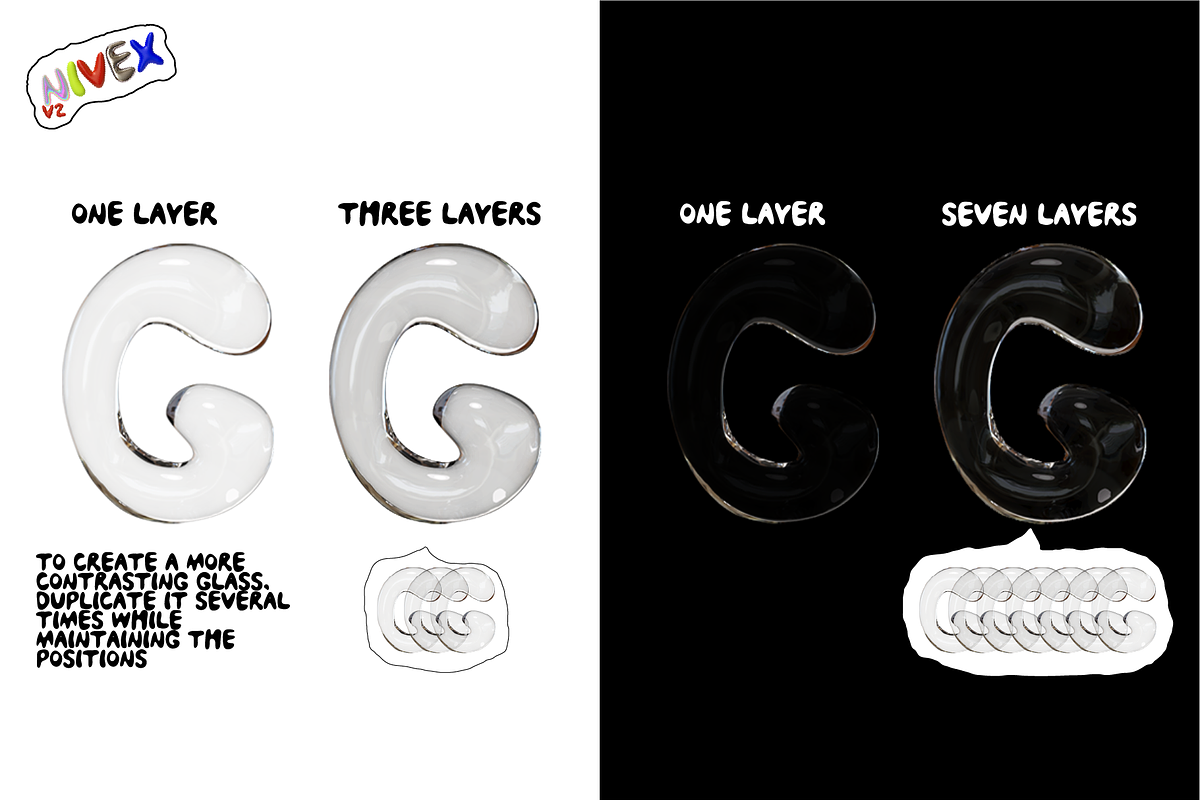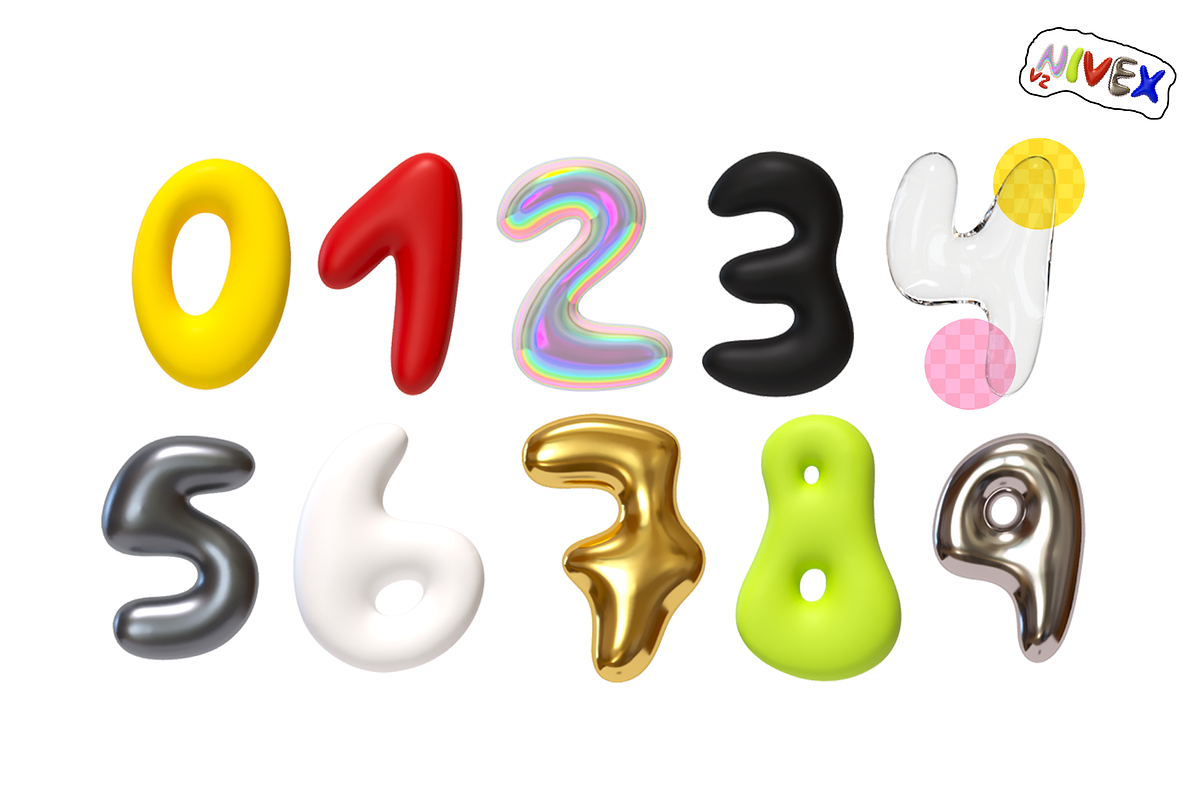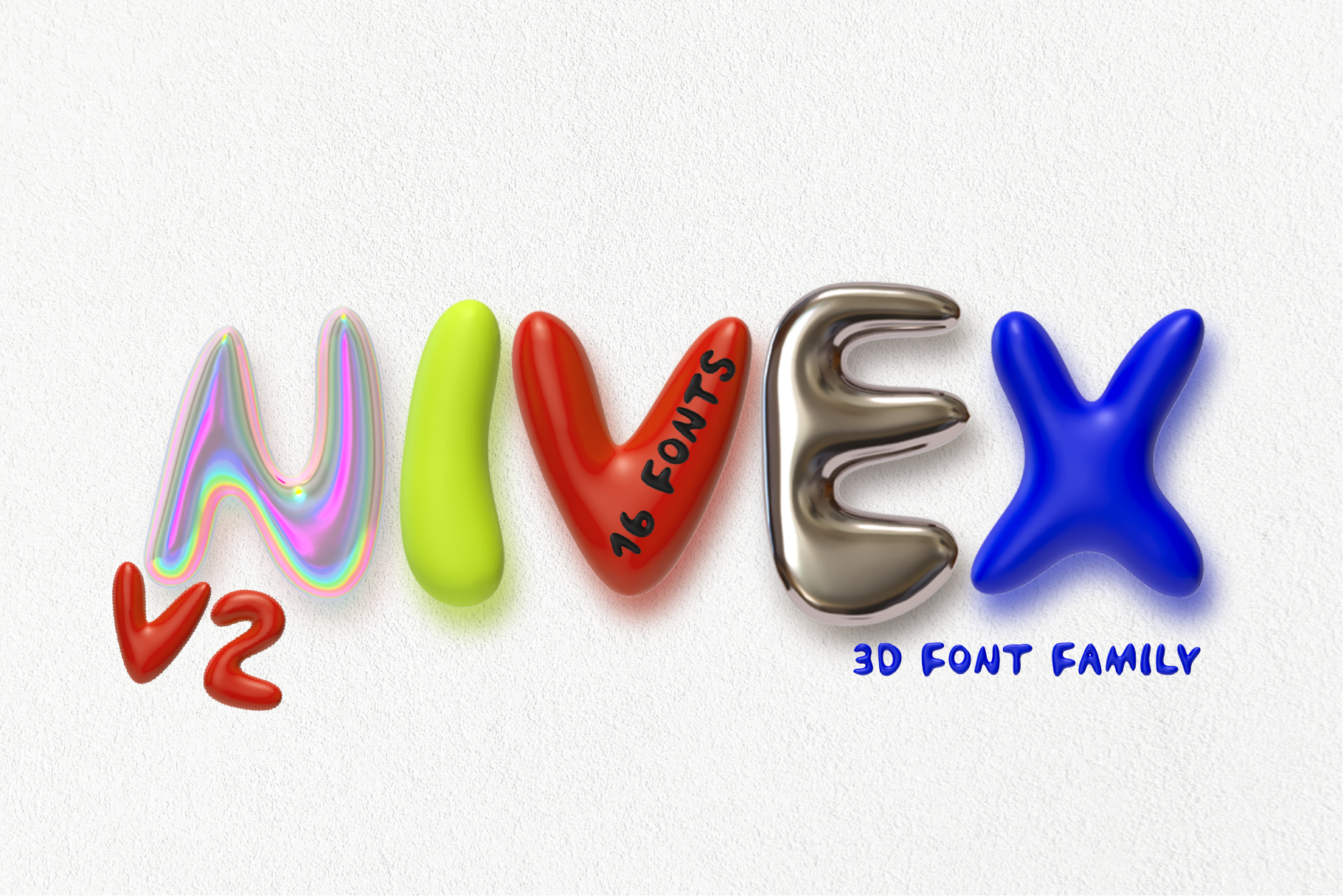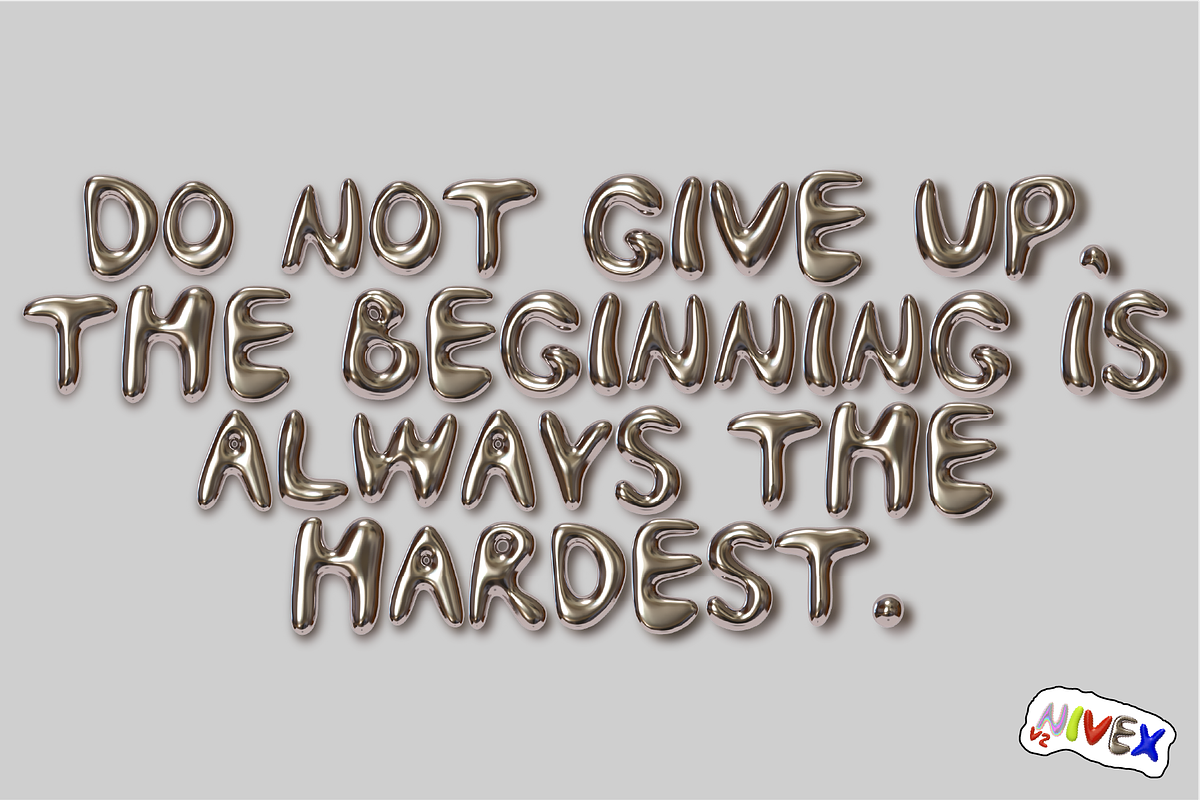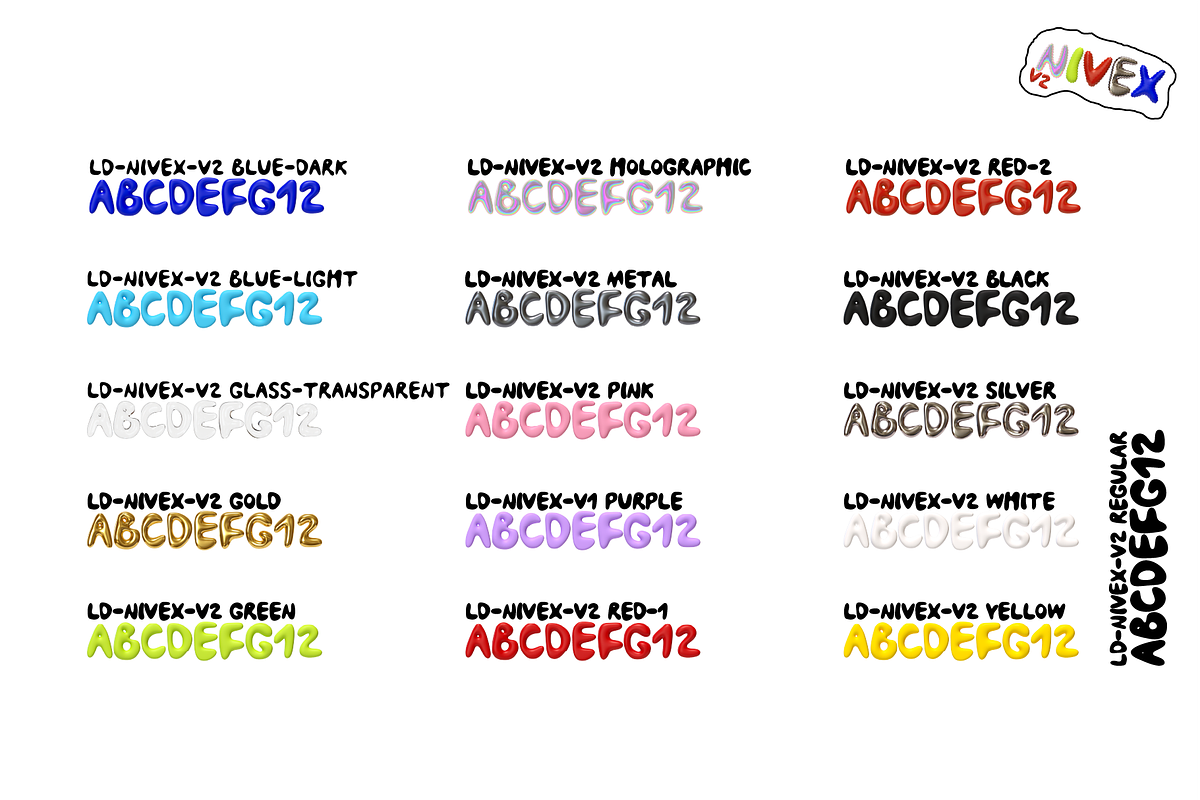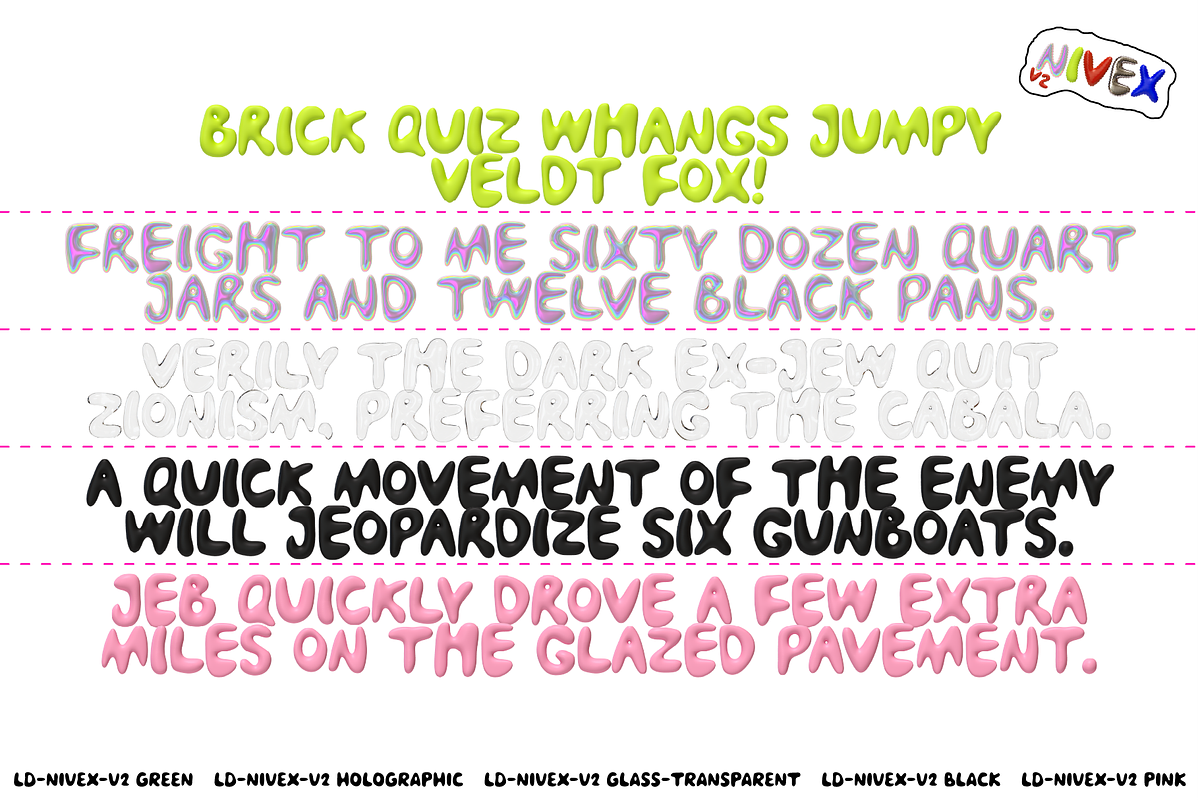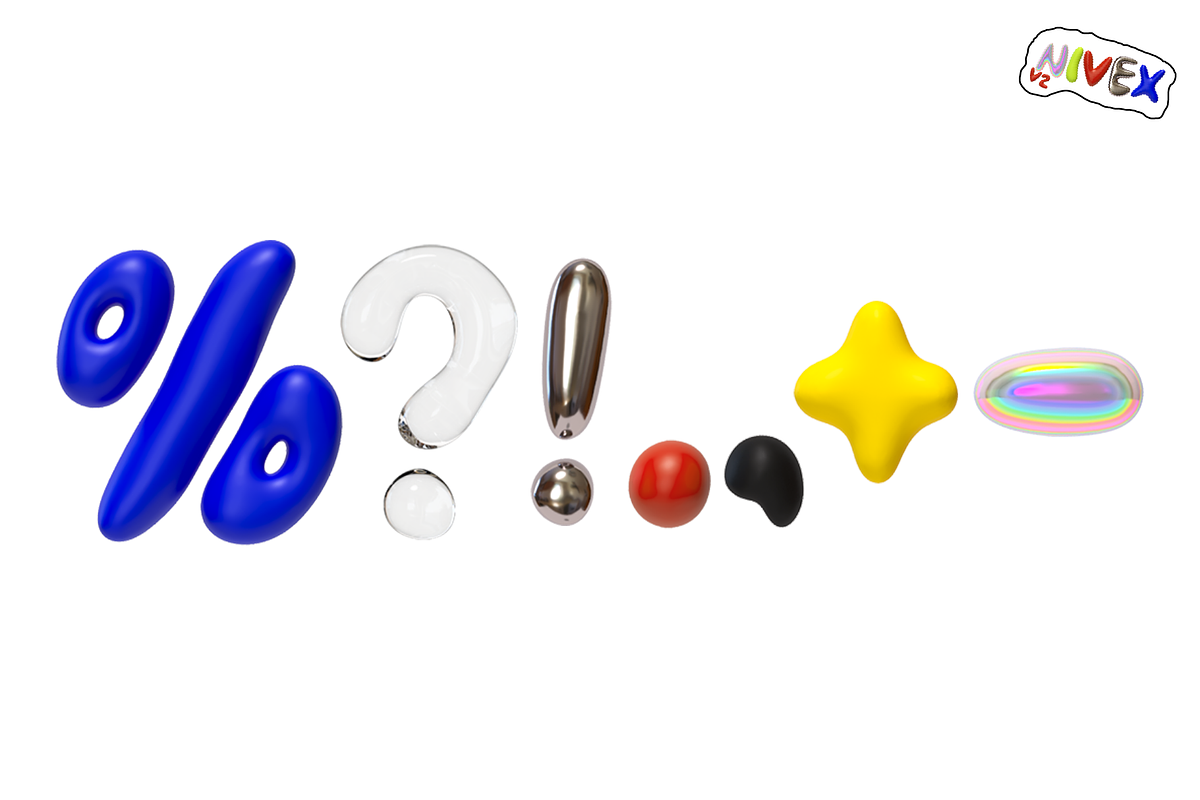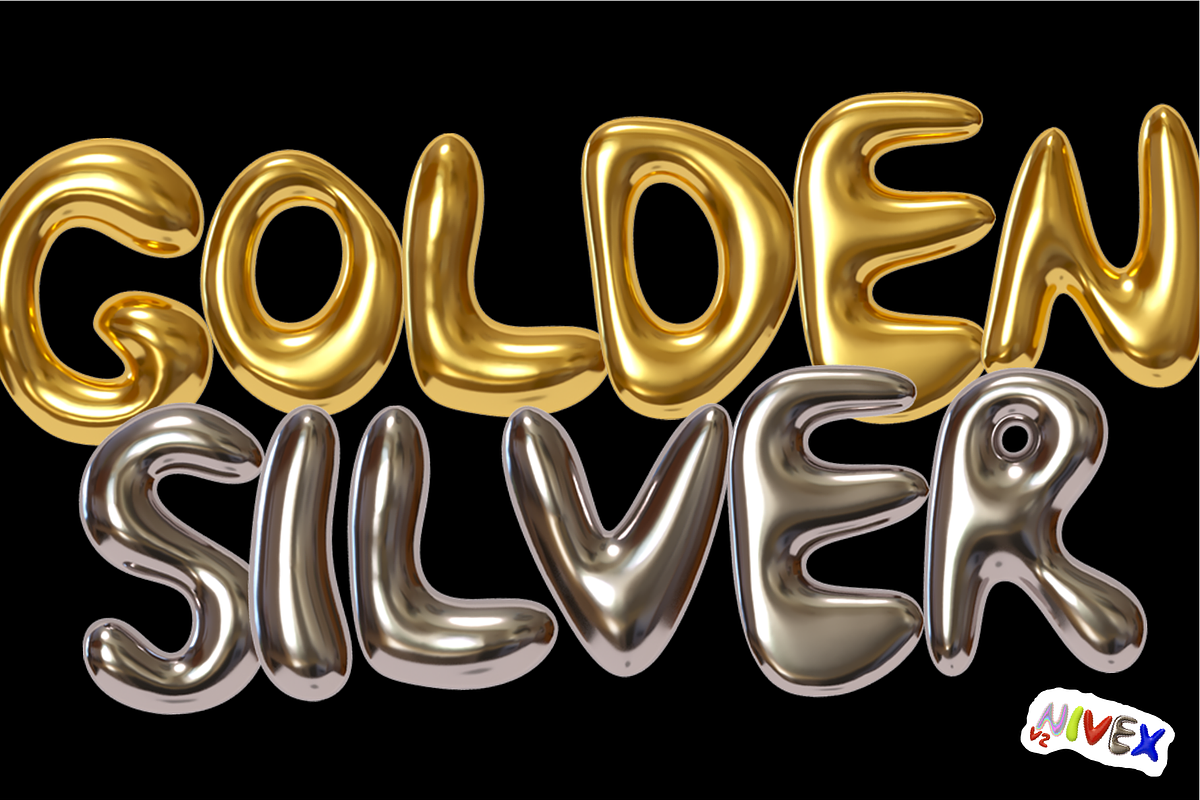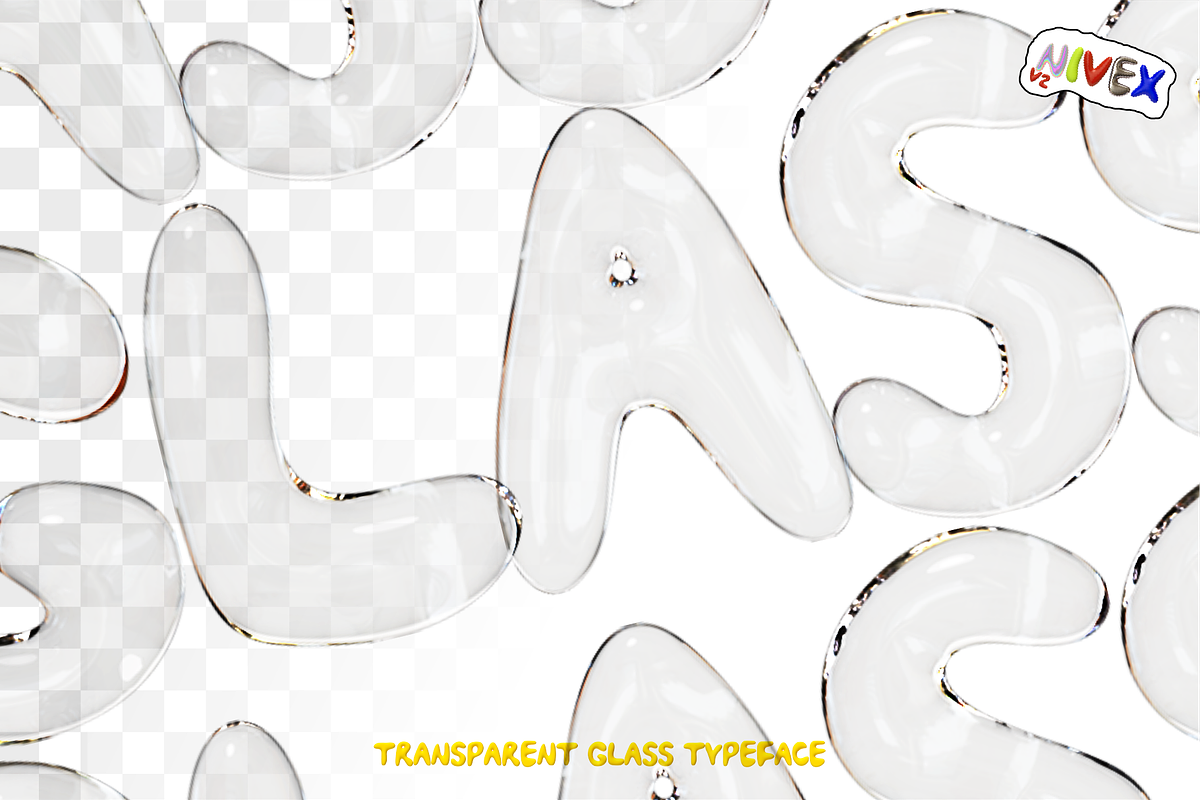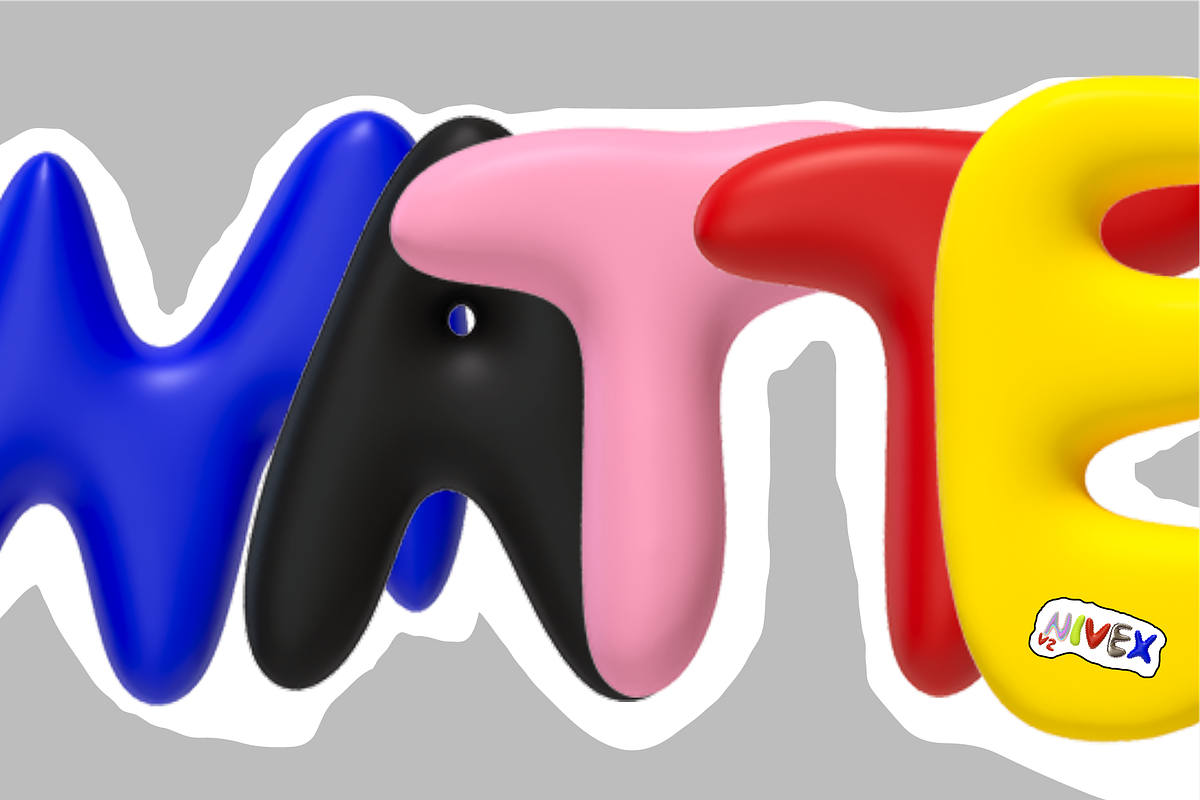
NIVEX V2. 3D OTF SVG Font Realistic.
Second part of the amazingly diverse Nivex V2 3D font family. New form of glyphs with a super-realistic appearance of letters made of different materials and colors, as well as in transparent glass! Great for creating discount marketing offers.
Real 3D effect
Different colors
Matte, Metal & Glass transparent material
Uppercase and lowercase letters are the same
Kerning